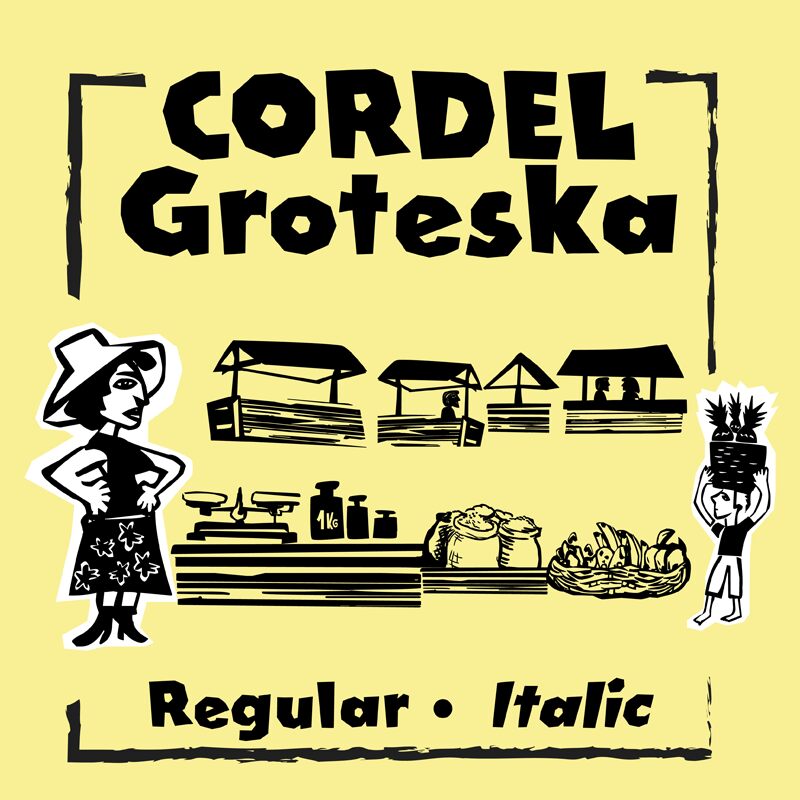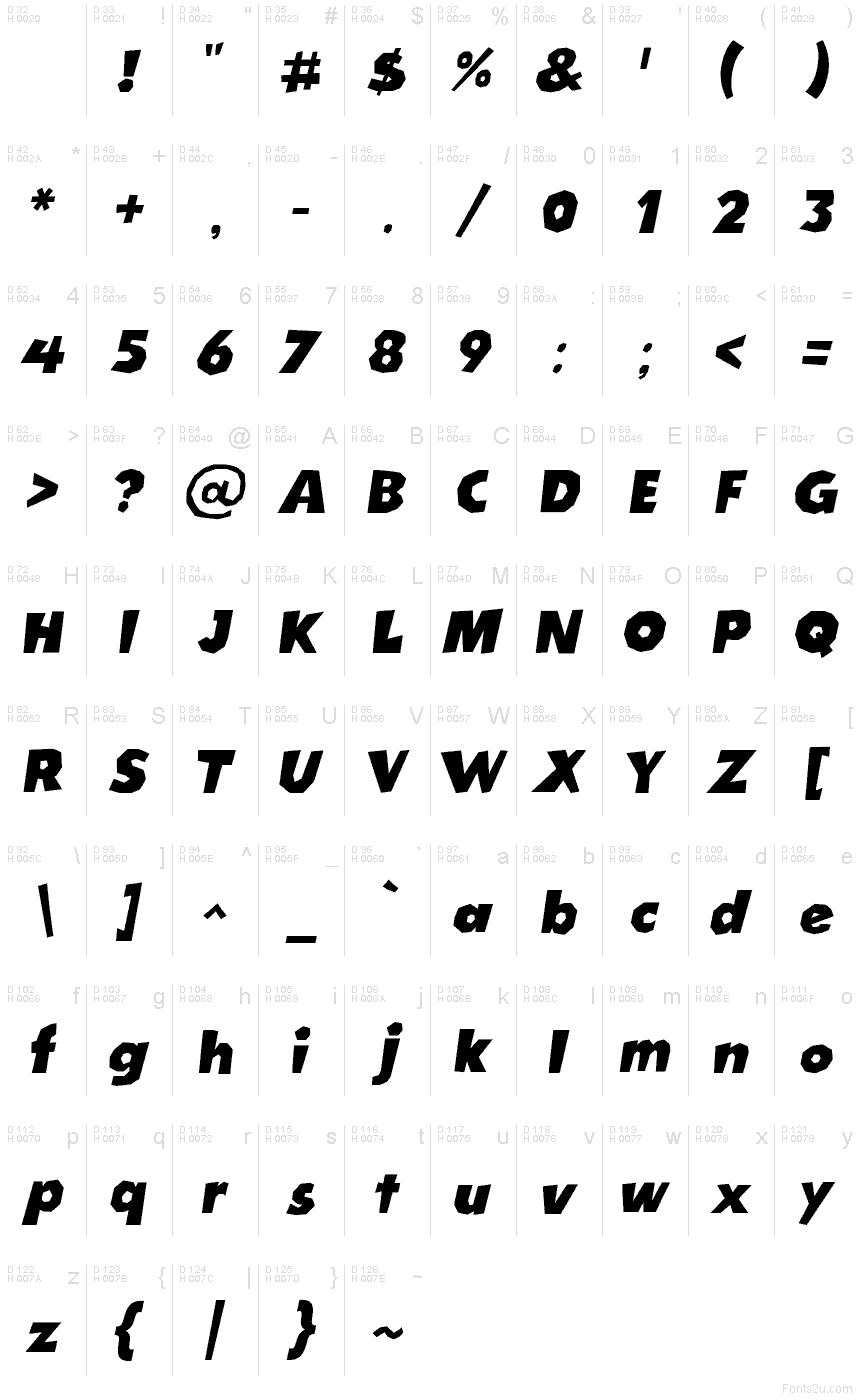
Cordel Groteska Italic
Cordel Groteska Italic font by Galdino Otten Fonts is a free cartoon display typeface with a breezy, hand-drawn swing that feels straight out of a bold comic panel. The chunky, slightly uneven strokes and strong forward slant give every word a sense of motion, like it’s leaning into the punchline. Letters sit close and tight, creating compact, in-your-face headlines that still feel warm and friendly rather than aggressive.
Using Cordel Groteska Italic, you can bring energy to playful logos, kids’ book covers, comic sound effects, YouTube thumbnails, game titles, stickers, and bold poster work. This free font shines when you go big and loud, letting its thick curves and bouncy rhythm really show. For a simple pairing, use Cordel Groteska Italic for titles and match it with a clean, neutral sans serif for supporting text.